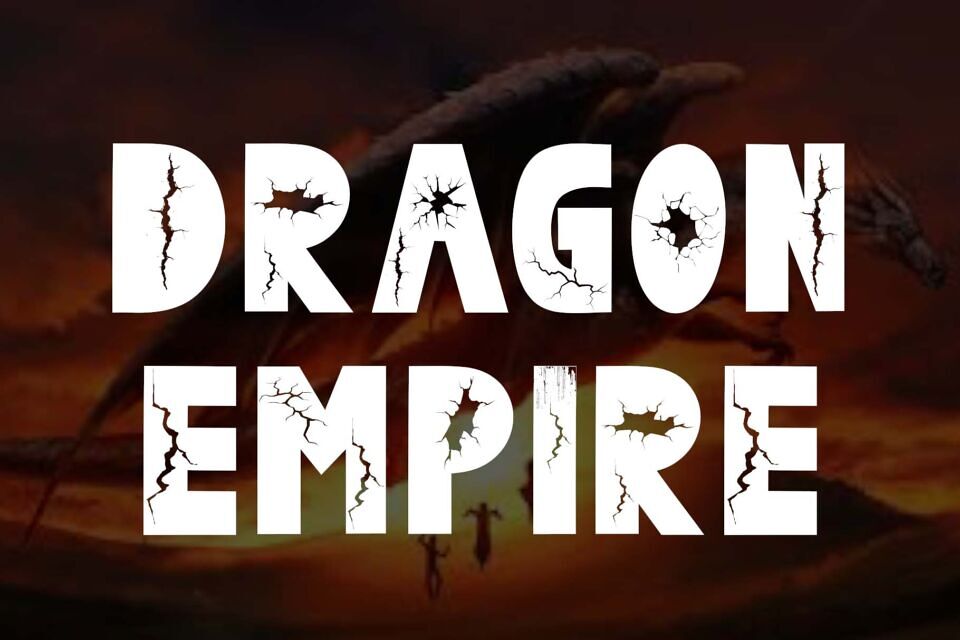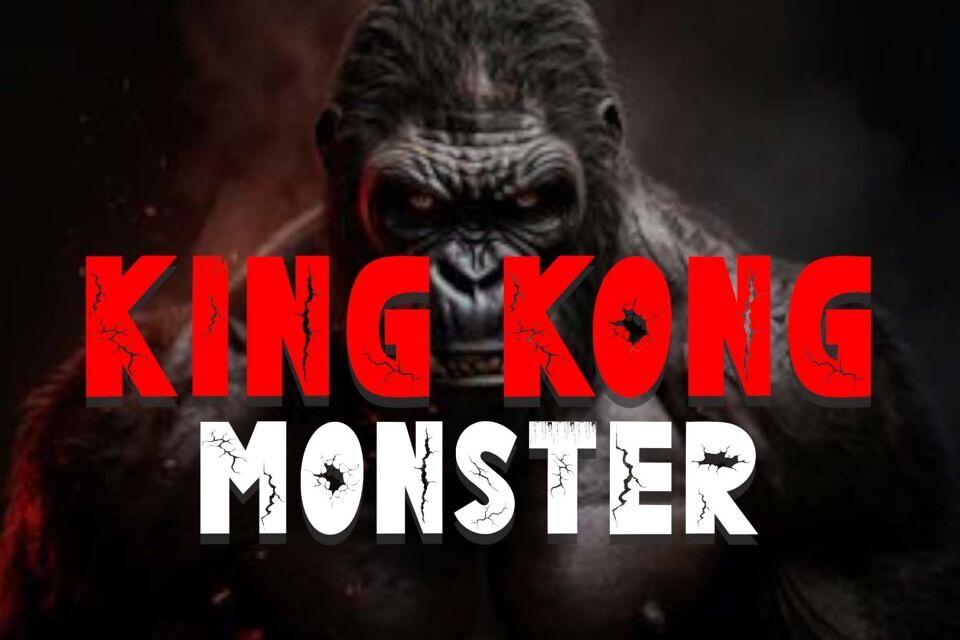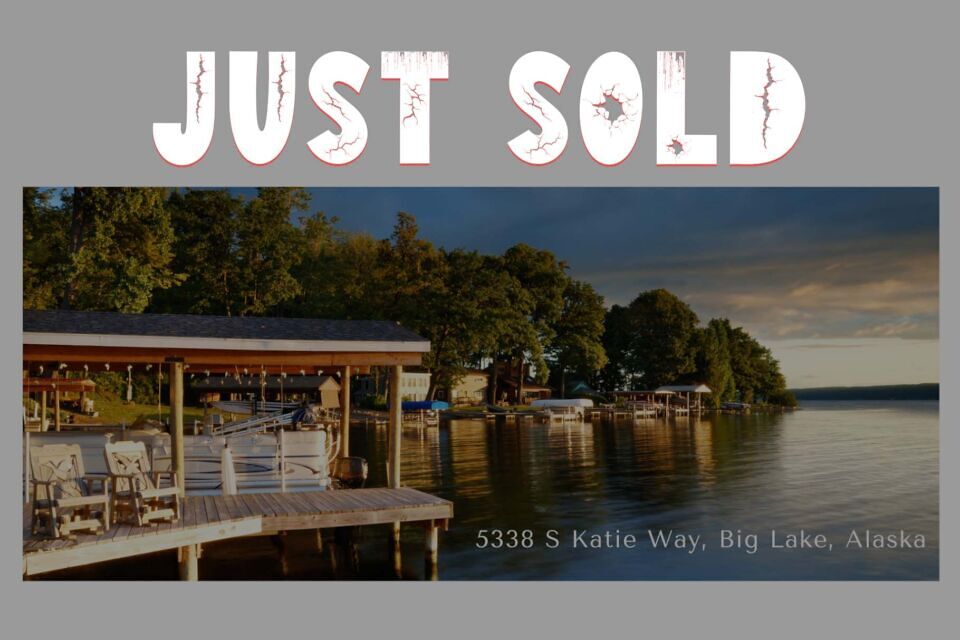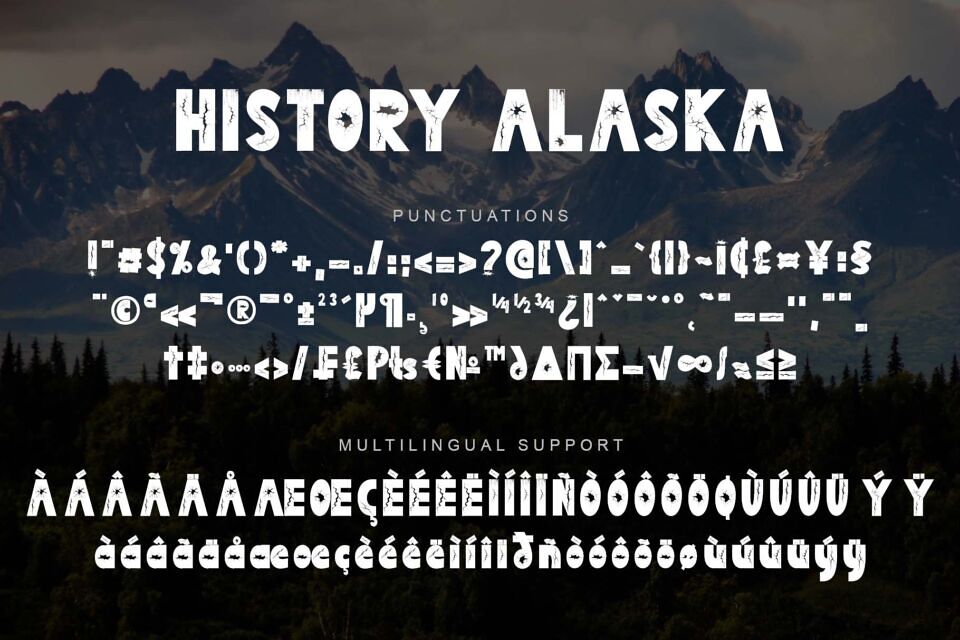
History Alaska is an elegant and unique display font. This font is equipped with uppercase, lowercase, numerals, punctuations and multilingual support. It is very suitable for use for movie titles, action movies, magazine titles, book titles, logos, banners, posters, prints, business branding, stickers, spring, summer, holiday, vacation, social media and others.